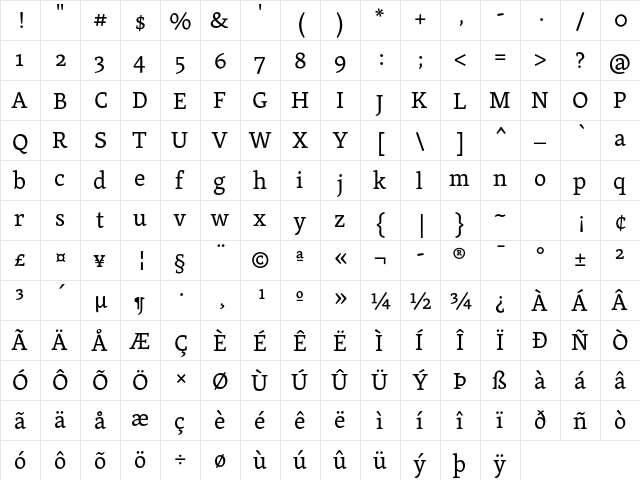
Skolar Regular
Design Context for Skolar Typeface
Skolar is a composed and adaptable typeface that performs quietly and consistently across a wide range of design contexts.